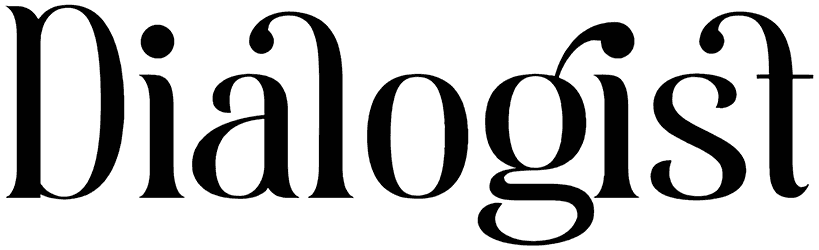
Dialogist Font
What your design needs to become professional and salient is to set a timeless and popular letterform on its words, and this serif font provides you with a nice item. The Dialogist font consists of classic and stylish letters, but it doesn’t have numbers. Give this basic font a chance and set it on your antique shop sign to make your name memorable.